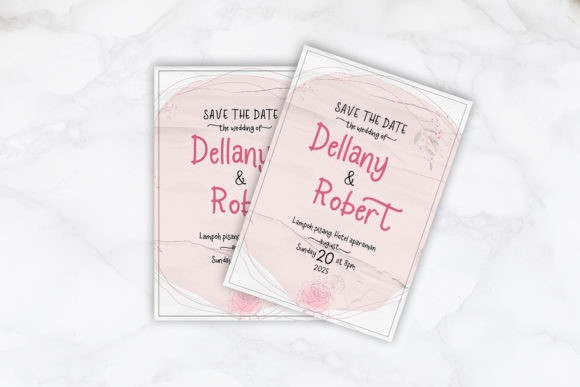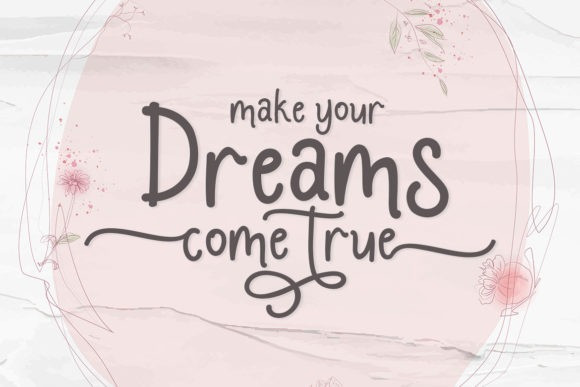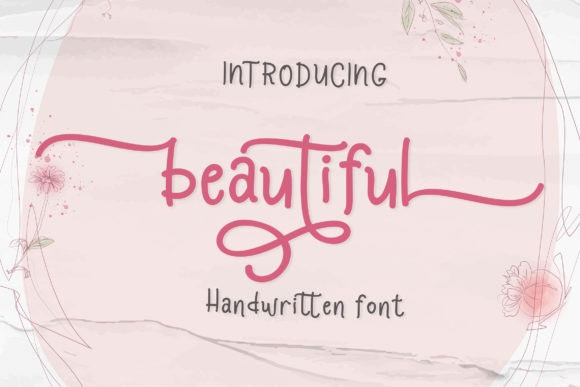
Beautiful Font
Beautiful Font is a joyful, delicate and flowing script font. It has a modern yet whimsical style and it will undoubtedly immerse your designs into a magical world.